Who is everyone hating on the Comic Sans font and what is their problem?
Get off your Helvetica high horse
There are few things more controversial and hated than the Comic Sans font. There are memes online about it, tweets of hatred and even petitions for its removal – yes, seriously. It’s incredible that the curvature and spacing of letters can evoke such emotions.
I have had enough of this unnecessary hatred. For one, Comic Sans is actually the most accessible font for dyslexic people.
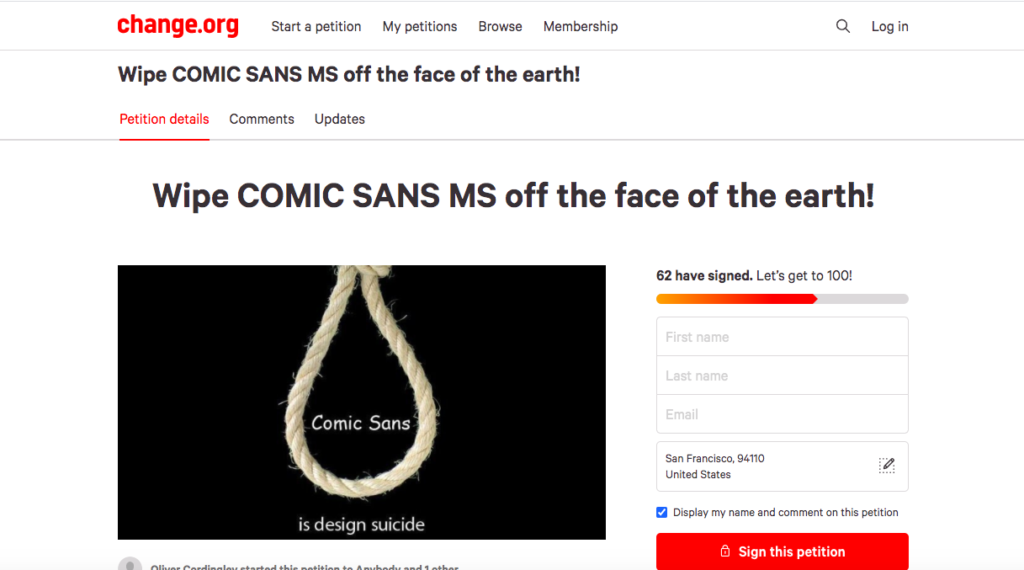
More importantly, how exactly is your life so boring that you have all this free time to hate on, wait for it, a font? I’m almost impressed by your passion. Almost.
Where the font began?
Comic Sans is a 90’s baby (like the best of us) described as “a non-connecting script inspired by comic book lettering, intended for use in informal documents and children’s materials”. Originating from comic books is pretty cool if you ask me. Vincent Connare, its inventor, cites The Dark Knight comic as one of the inspirations.
If Comic Sans is good enough for Batman, it’s good enough for me.
Comic Sans is also the bad boy of all the fonts. Connare said it “was breaking the typography rules” due to the difference in heights of all the letters. So, if you’re looking to spice up your next piece of coursework, I dare you to submit it in Comic Sans.
Where did the hatred start?
Honestly, we’ll never know. Maybe the perception of it as childlike makes adults want to distance themselves to show they have outgrown the need for Comic Sans.
Whether people hate the font because it’s “childish” or because they have nothing better to do, online mockery is everywhere. There’s even a website called Comic Sans Criminal to call out people for using the font. It even includes a name and shame section. I wish I were joking.
Whilst people are entitled to their own opinions on fonts, the argument that the font is childish and unprofessional is entirely down to systematic prejudices.
Why Comic Sans is actually elite
Comic Sans is listed by The British Dyslexia Association as one of the best fonts to use for people with learning disabilities such as dyslexia. Citing that it spaces the letters out more so than other fonts (*cough* Times New Roman *cough*). With it being estimated that in the UK one in ten people have dyslexia, this font’s accessibility should be celebrated.
If you are hating on Comic Sans just because it looks unprofessional, ask yourself why? How can the way letters are arranged on a screen dictate so much meaning?
Get off your Helvetica high horse. If a font makes reading something easier, I don’t understand the issue.
If you have joined the band wagon of hating Comic Sans for absolutely no reason at all, please consider why you hate it so much. I am not by any means saying that the font is the best and only font that should be used. I merely want people to stop the Comic Sans witch-hunt.
If Comic Sans were a club, it would be Hive: polarising but accessible to everyone.
People say they don’t like it, but really, you can’t deny it is good fun.